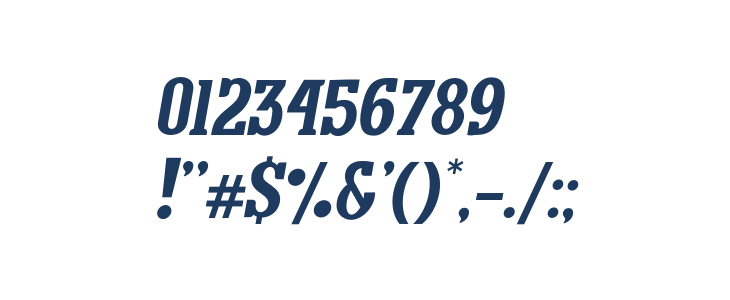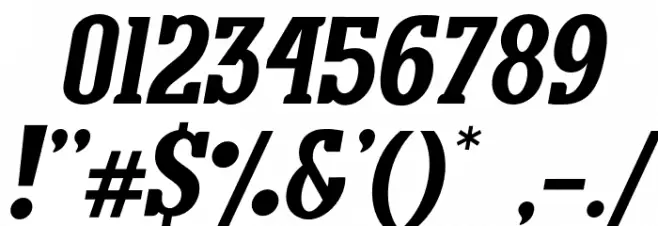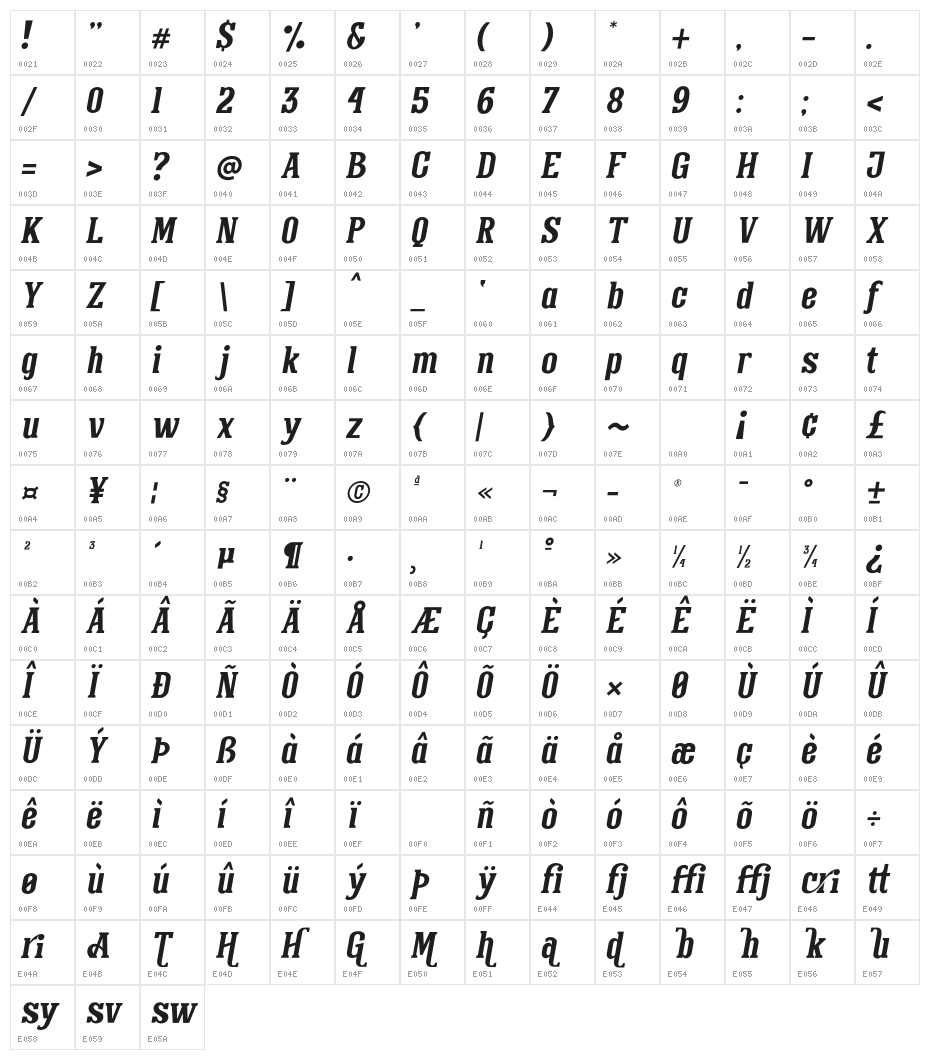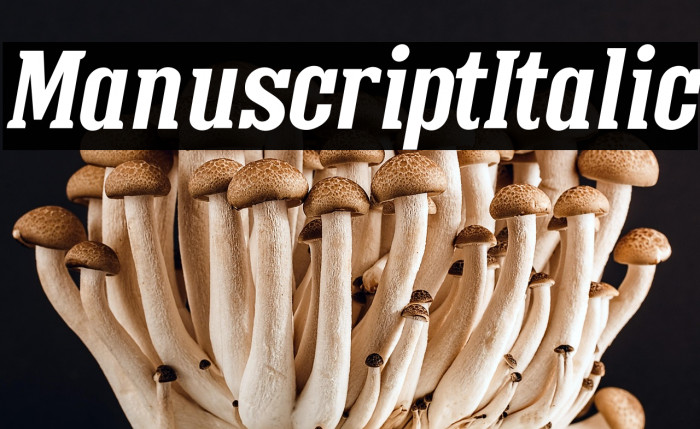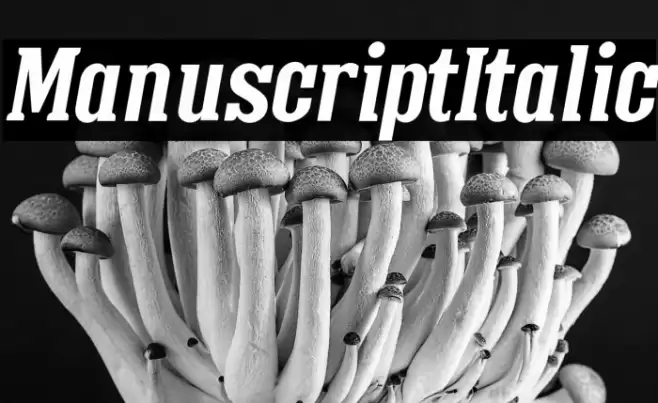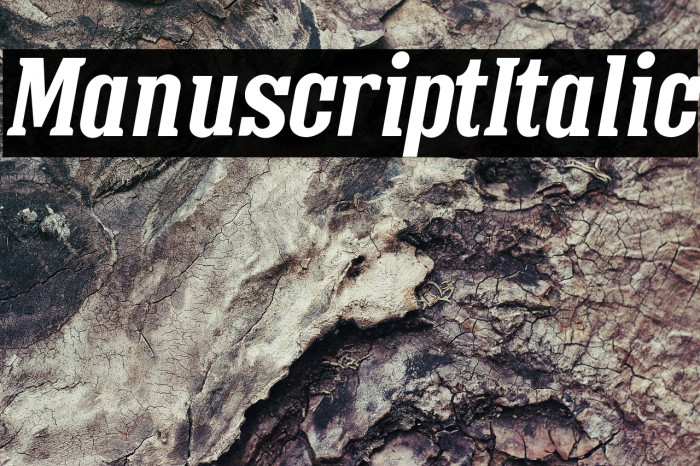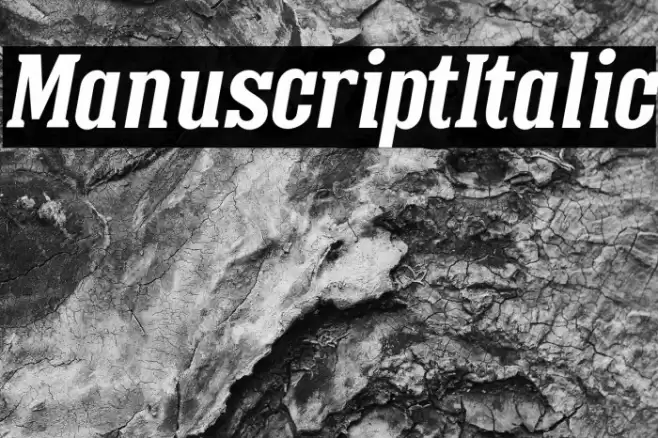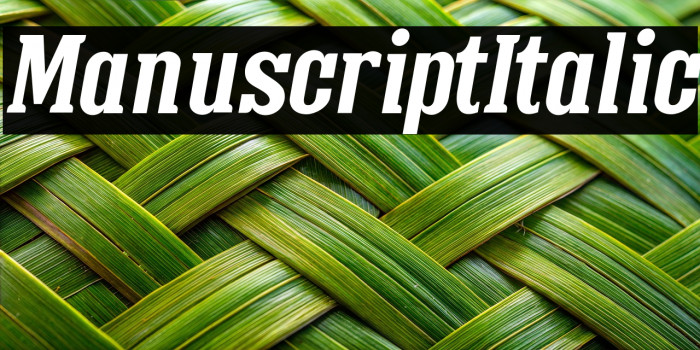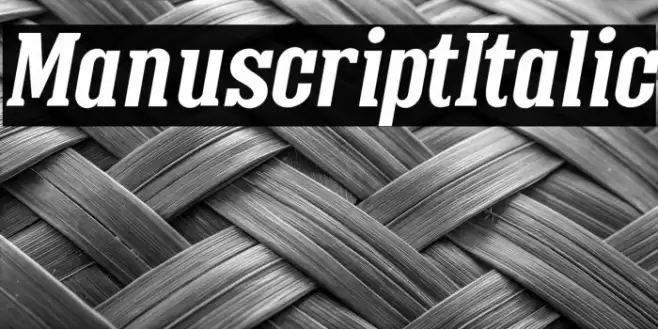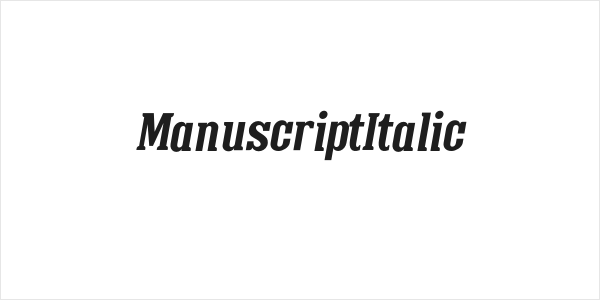
ManuscriptItalic Font
ManuscriptItalic Description
This font exhibits a dynamic and energetic style with a pronounced italic slant, giving it a sense of movement and fluidity. The characters are bold and robust, with consistent stroke thickness that conveys strength and confidence. The uppercase letters are tall and commanding, while the lowercase letters maintain a harmonious balance with a slightly rounded appearance. The numerals are clear and legible, matching the boldness of the alphabetic characters. Special characters are well-integrated, maintaining the overall aesthetic of the font. This typeface is ideal for making a strong visual impact, suitable for headlines and attention-grabbing text.
| Proposed Projects | Ideal for branding, advertising, posters, and any project requiring a strong visual impact. |